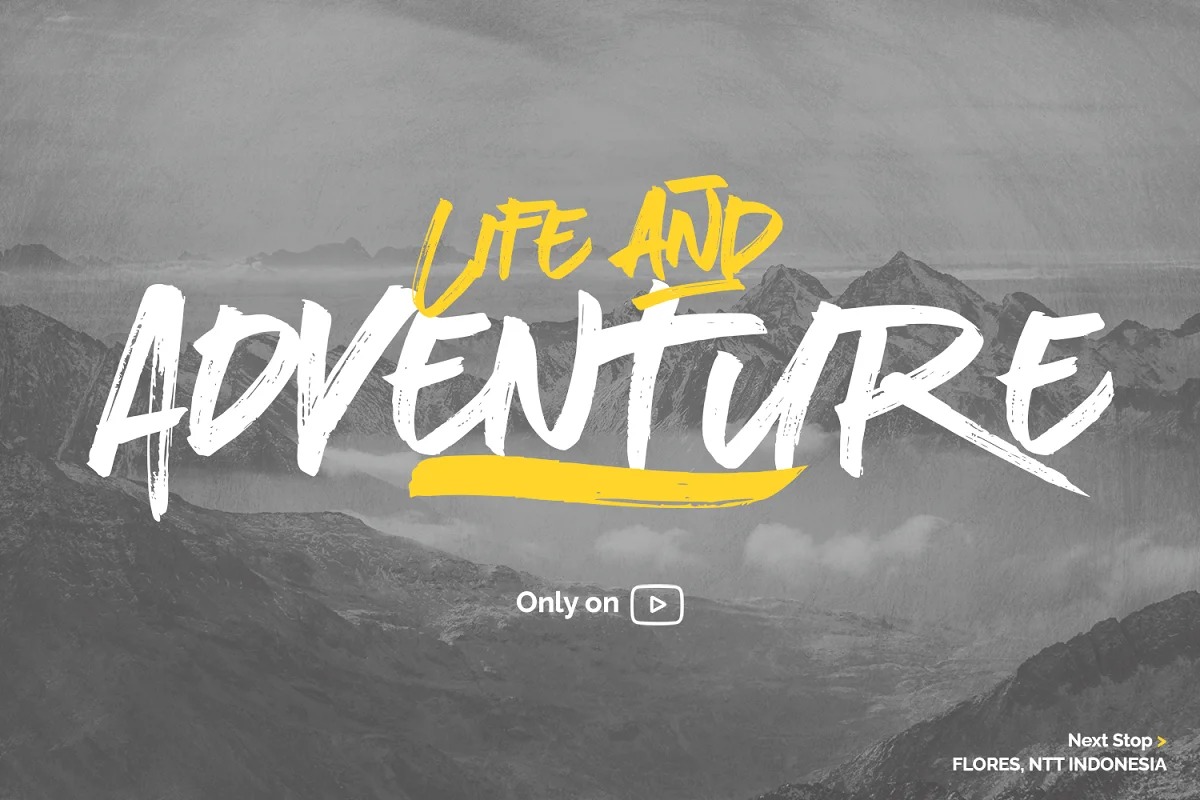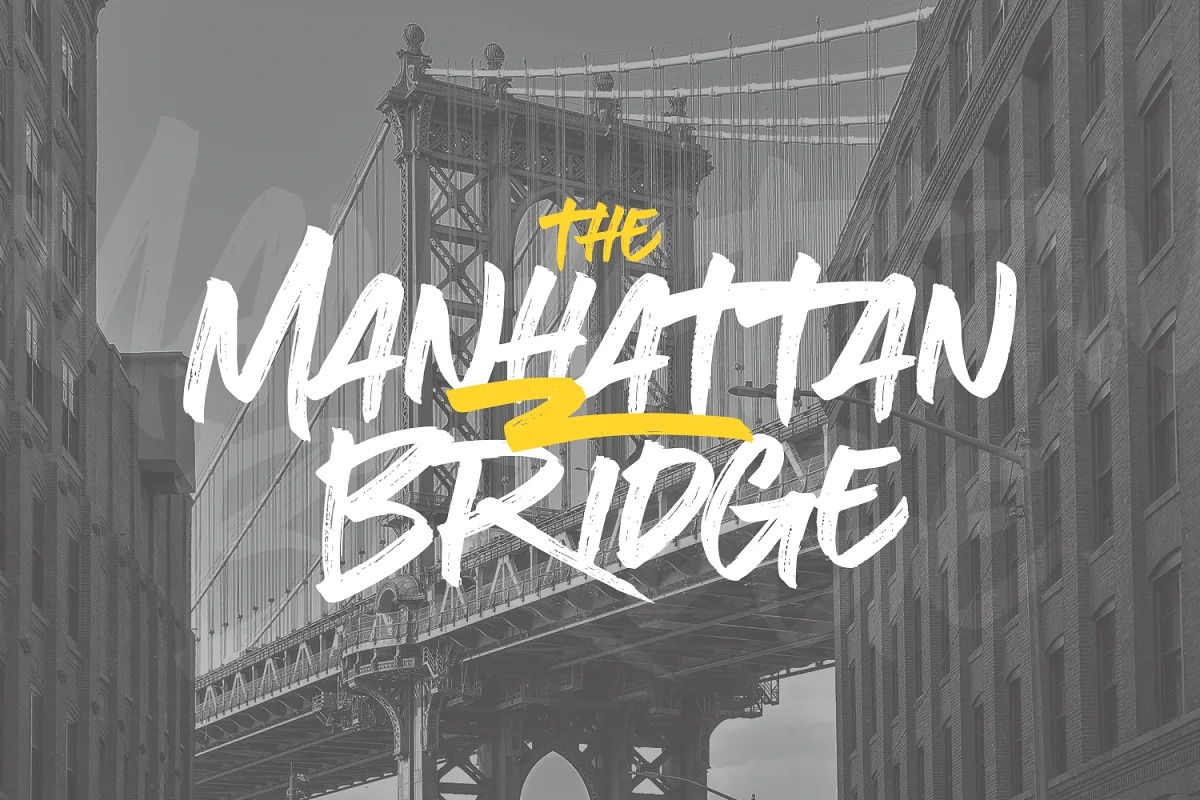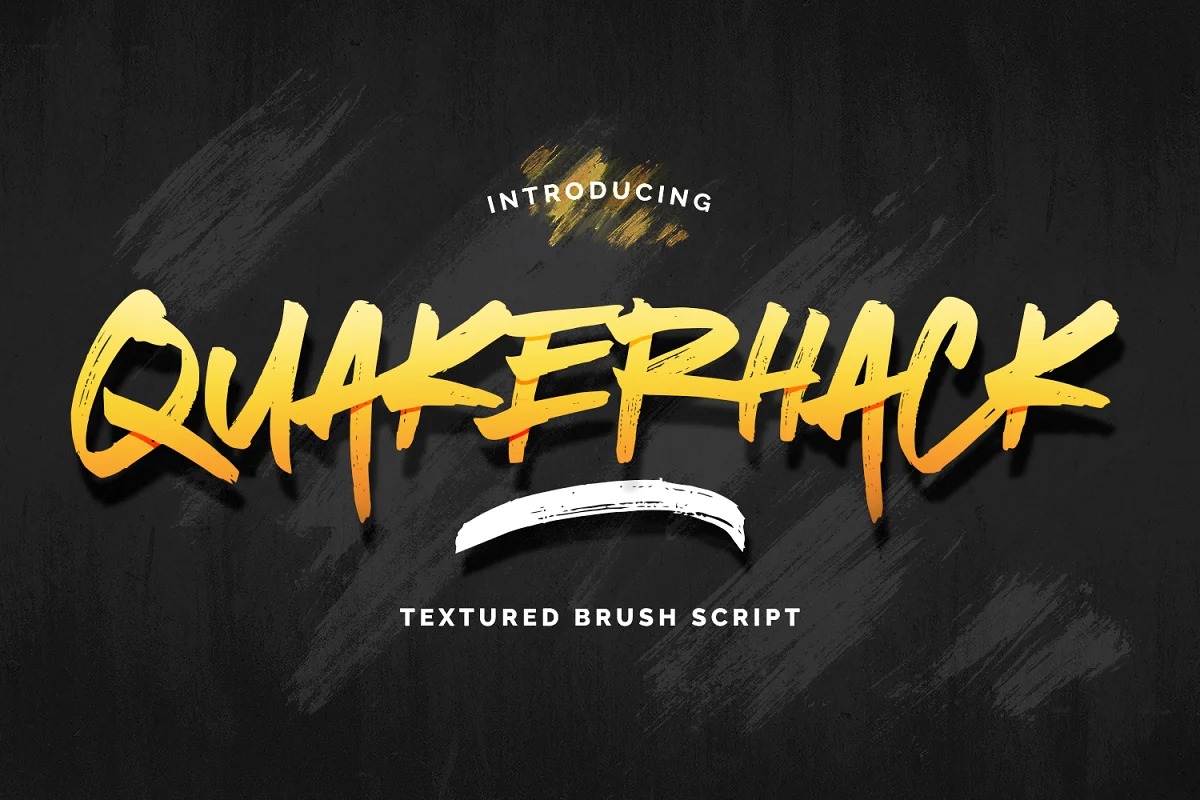
Quakerhack Font
Quakerhack Brush Font
It’s a new modern brush font created by Almarkha Type with bold brush stroke, upright and fun character with a bit of ligatures. Letters are made with brushes on Procreate. Then scanned and carefully drawn into vector format. That is why Quakerhack has charming, authentic and relaxed characteristic more natural look to your text with a more natural look to your text. You can activate Ligature OpenType panel to make these two styles. It also has many alternatives and underlines that make your text and design more interesting. Quakerhack is perfect for homeware designs,branding projects, Logo design, Quotes product packaging.